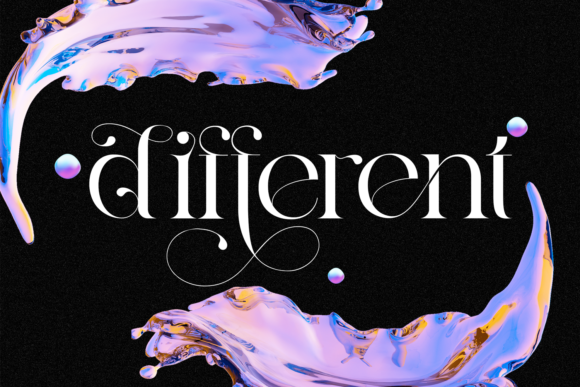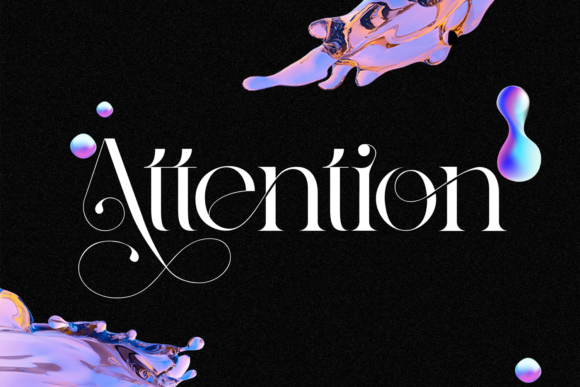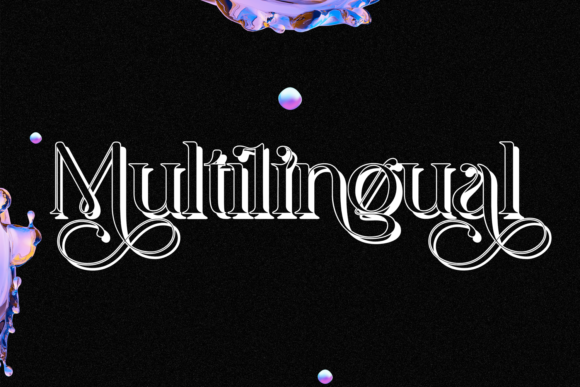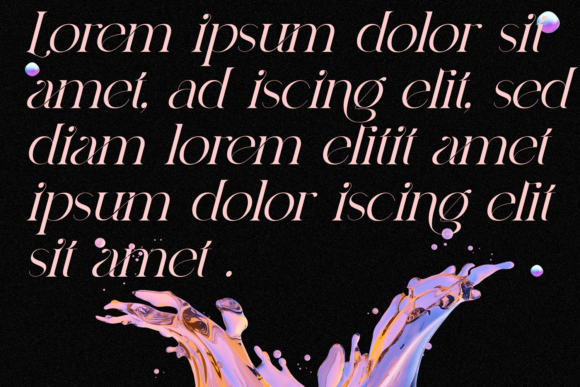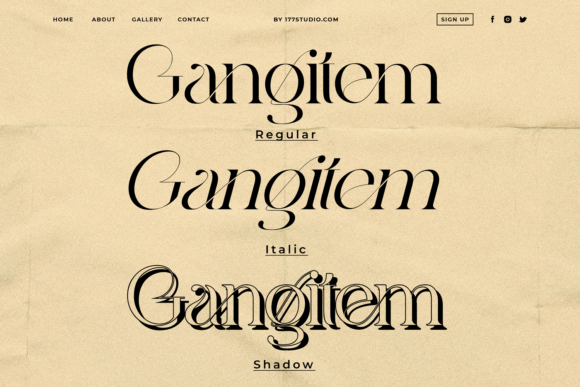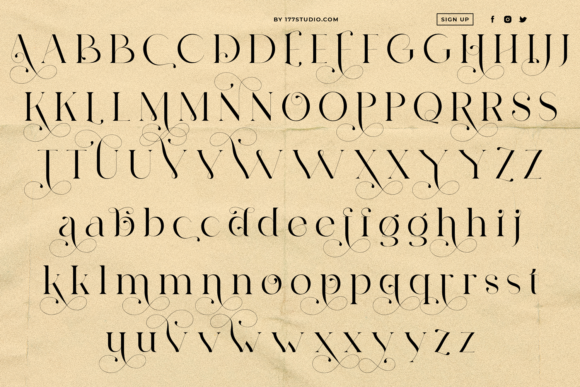
Introduction to Gangitem Font
Gangitem is an elegant and distinct serif font.
This font would be ideal for writing web designs, business cards, or pretty much anything else that requires a unique touch .